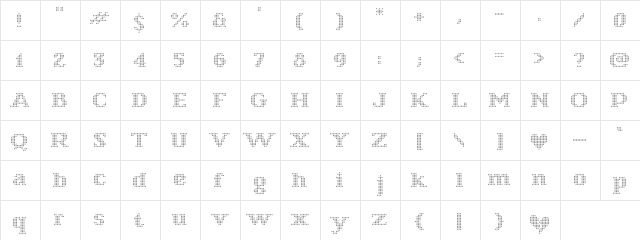
Starry Stitch Regular
| Designer | Nils von Blanc |
Design Context for Starry Stitch Typeface
Starry Stitch is a composed and adaptable typeface that performs quietly and consistently across a wide range of design contexts.